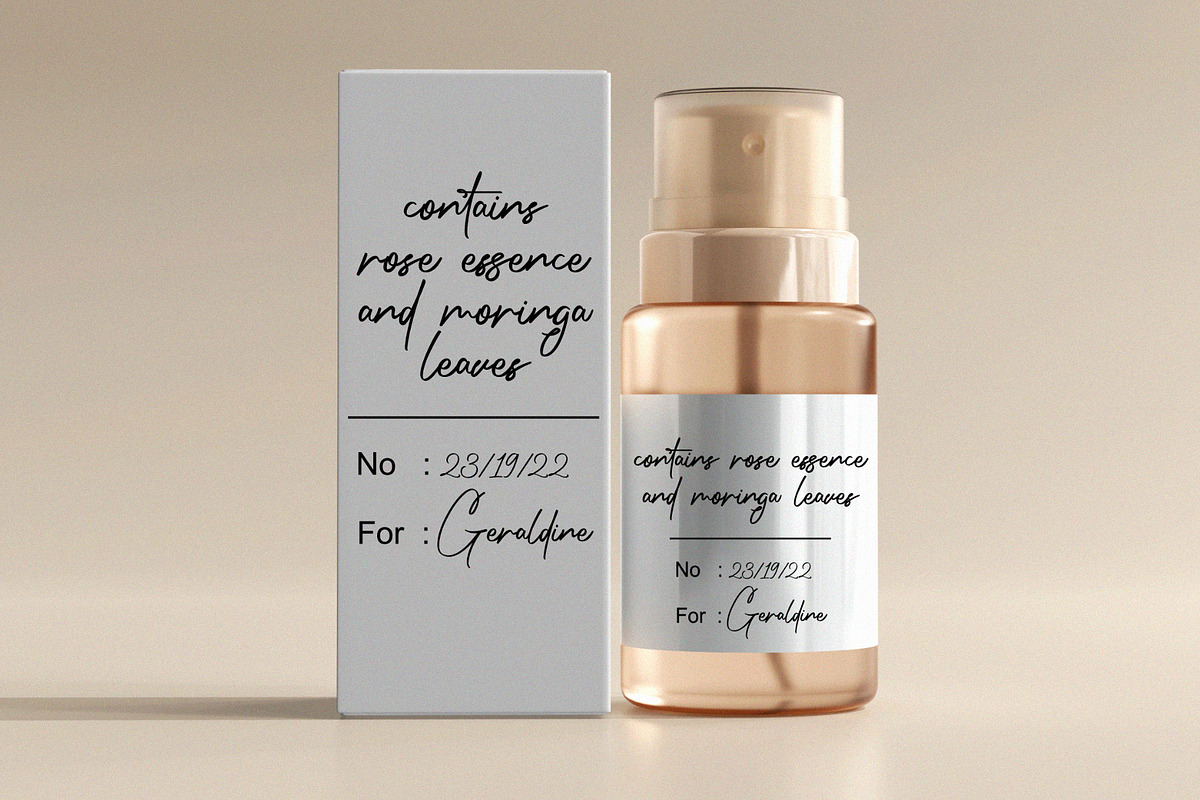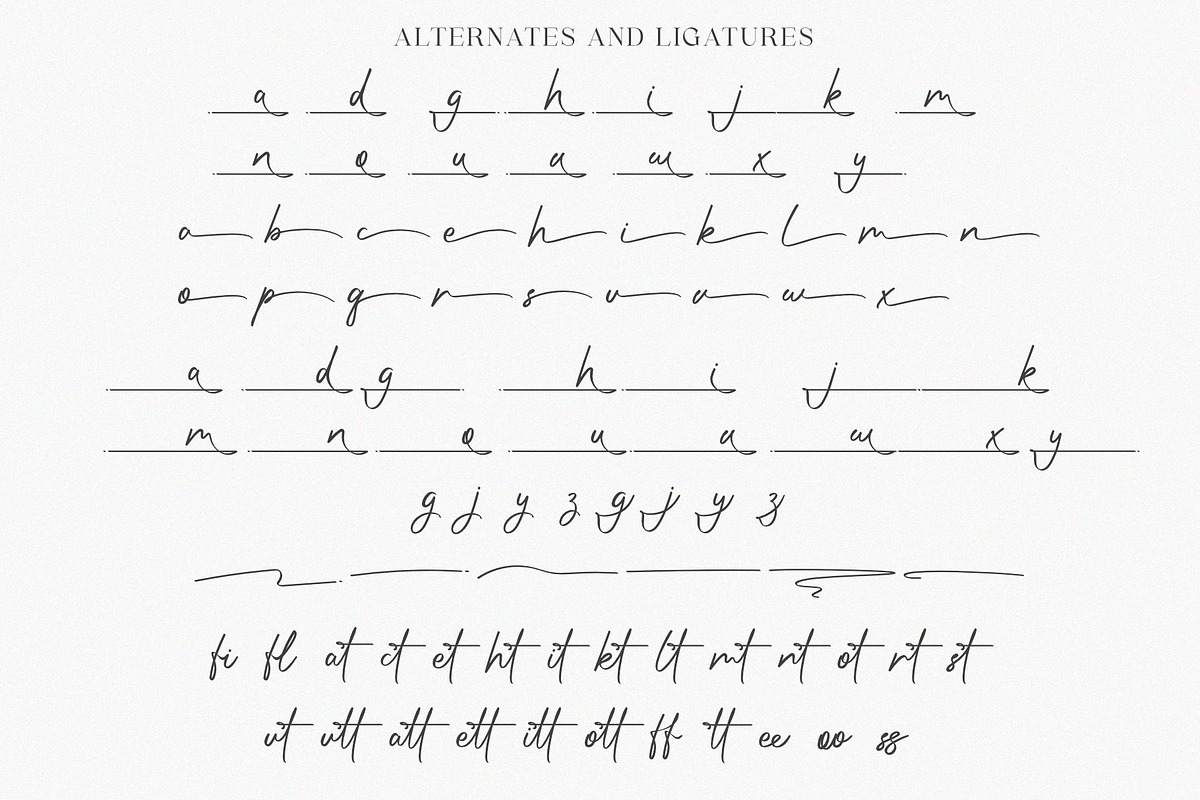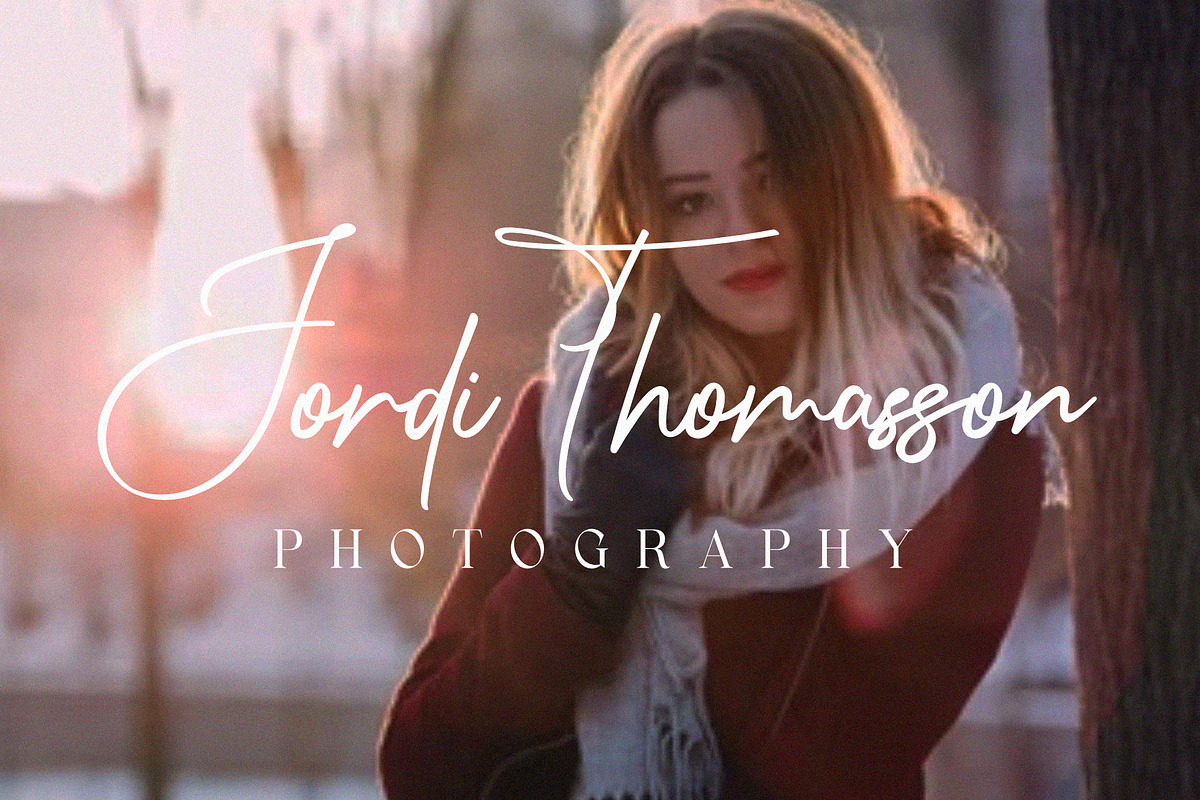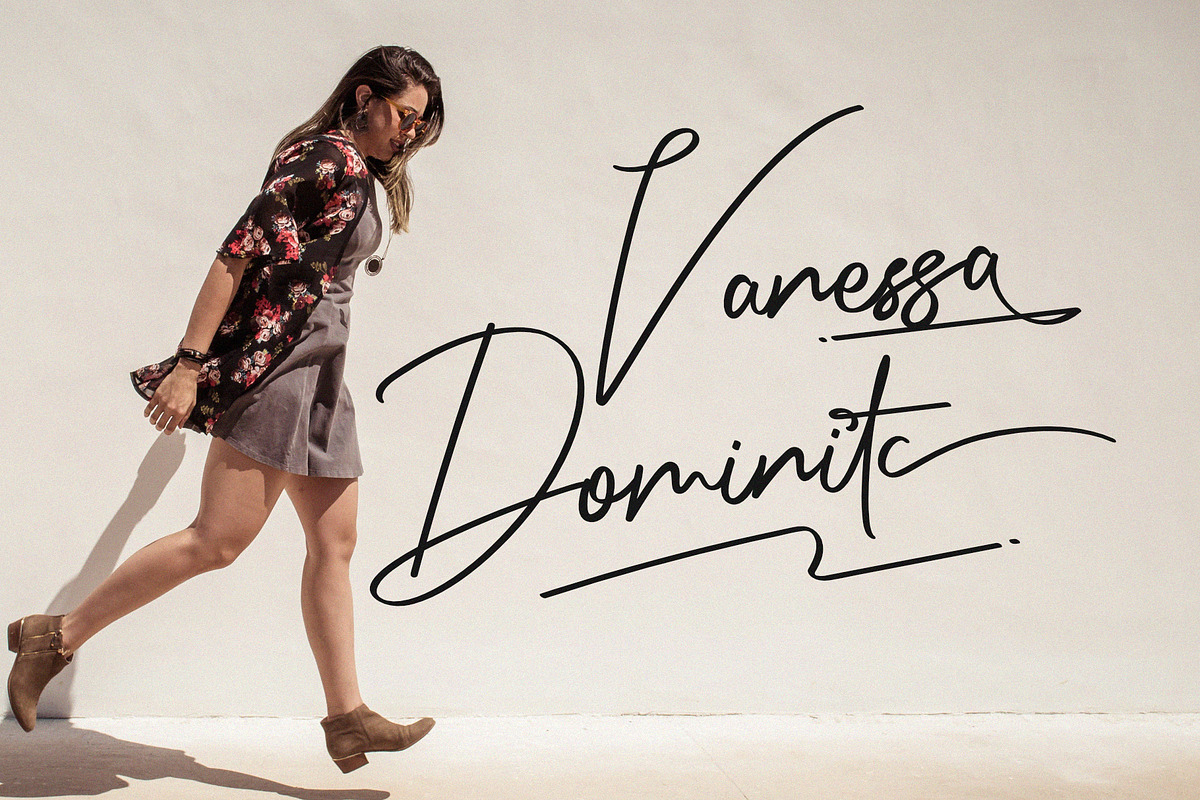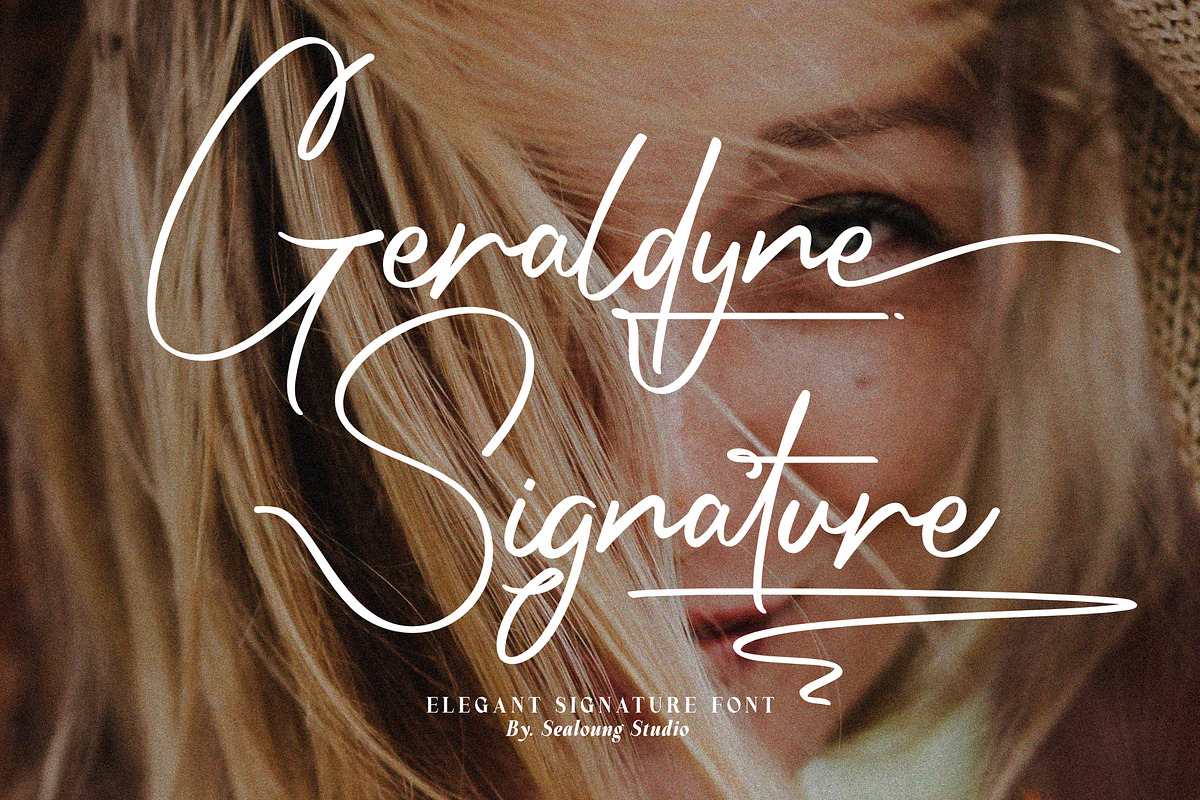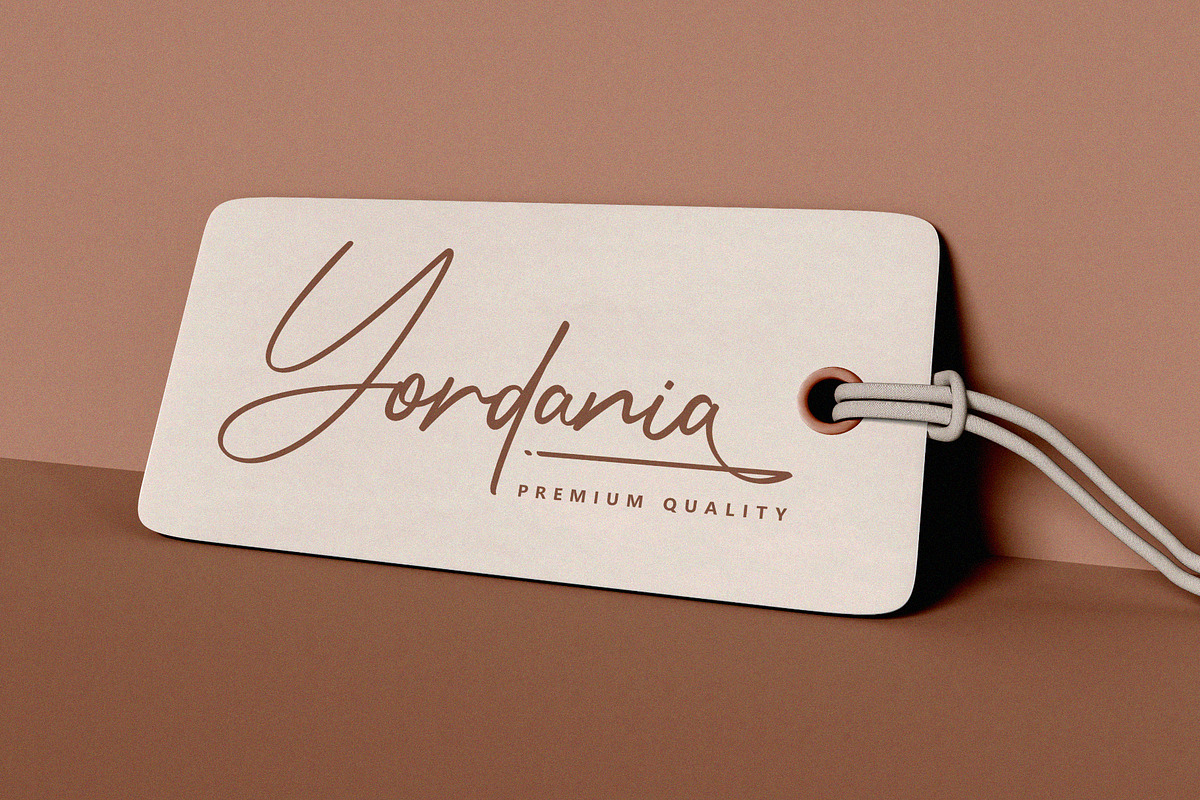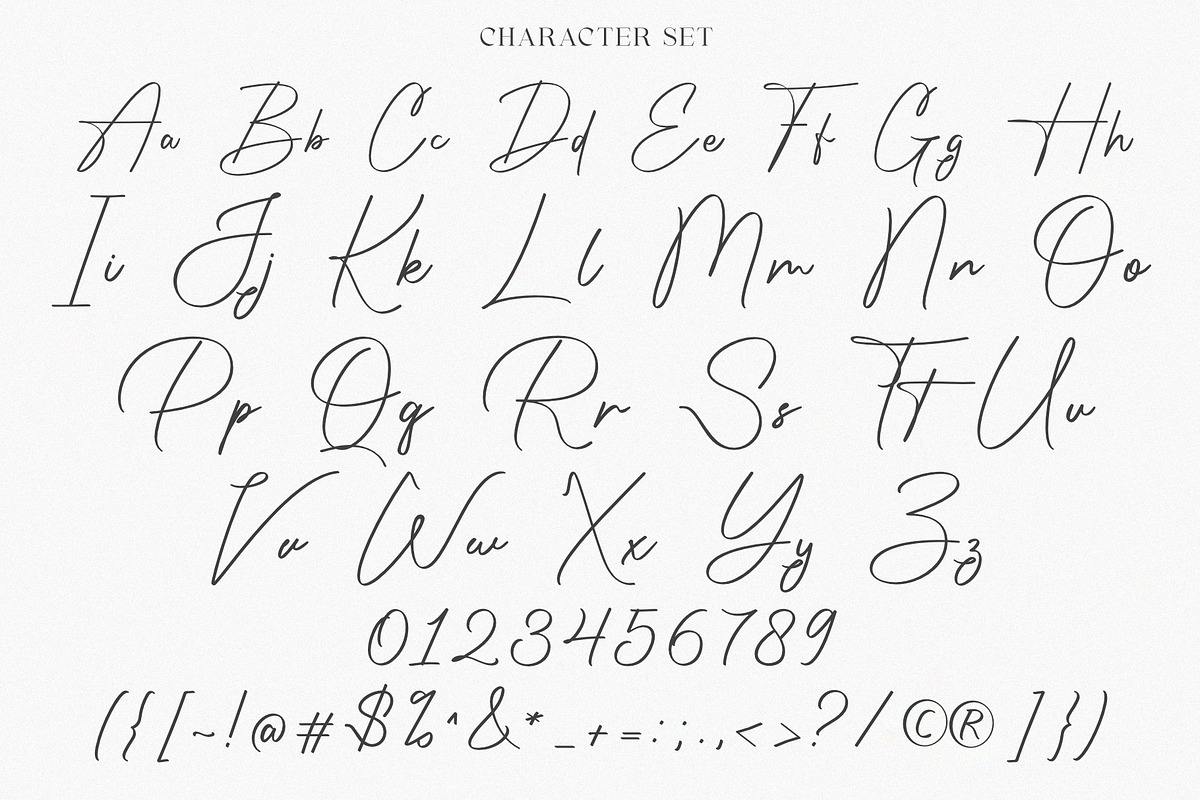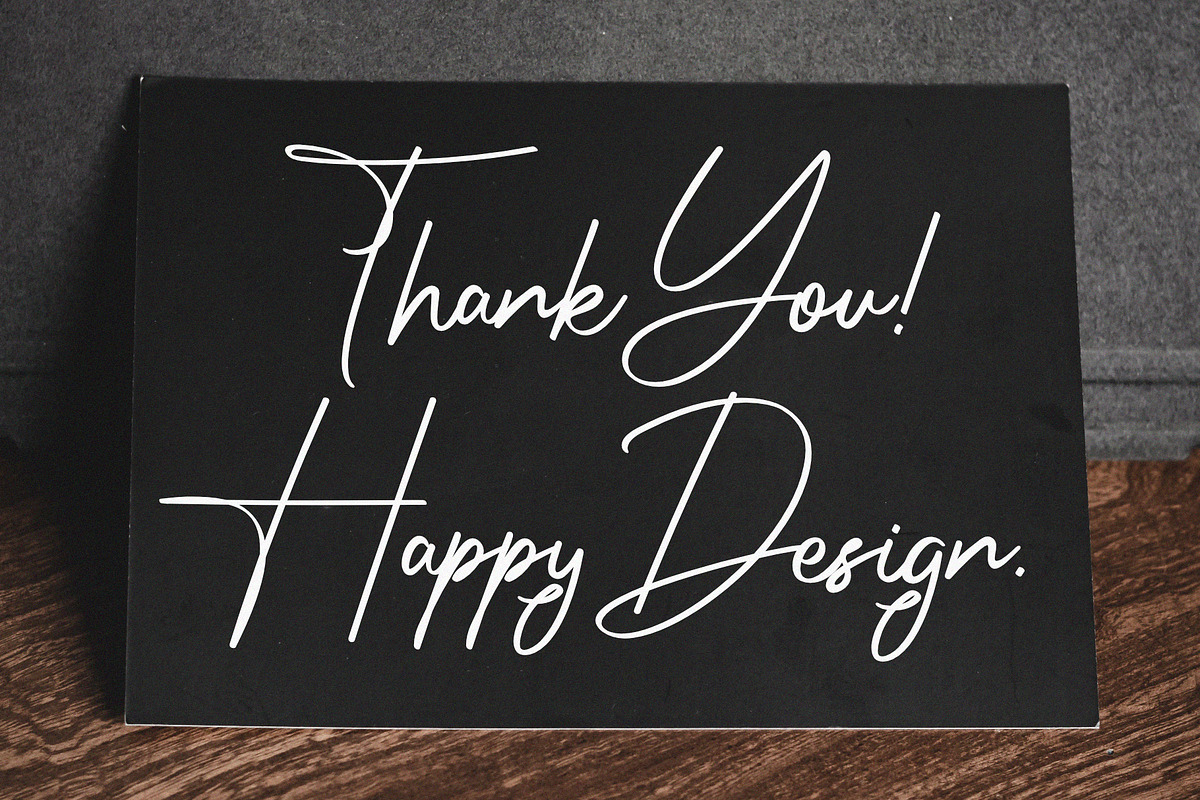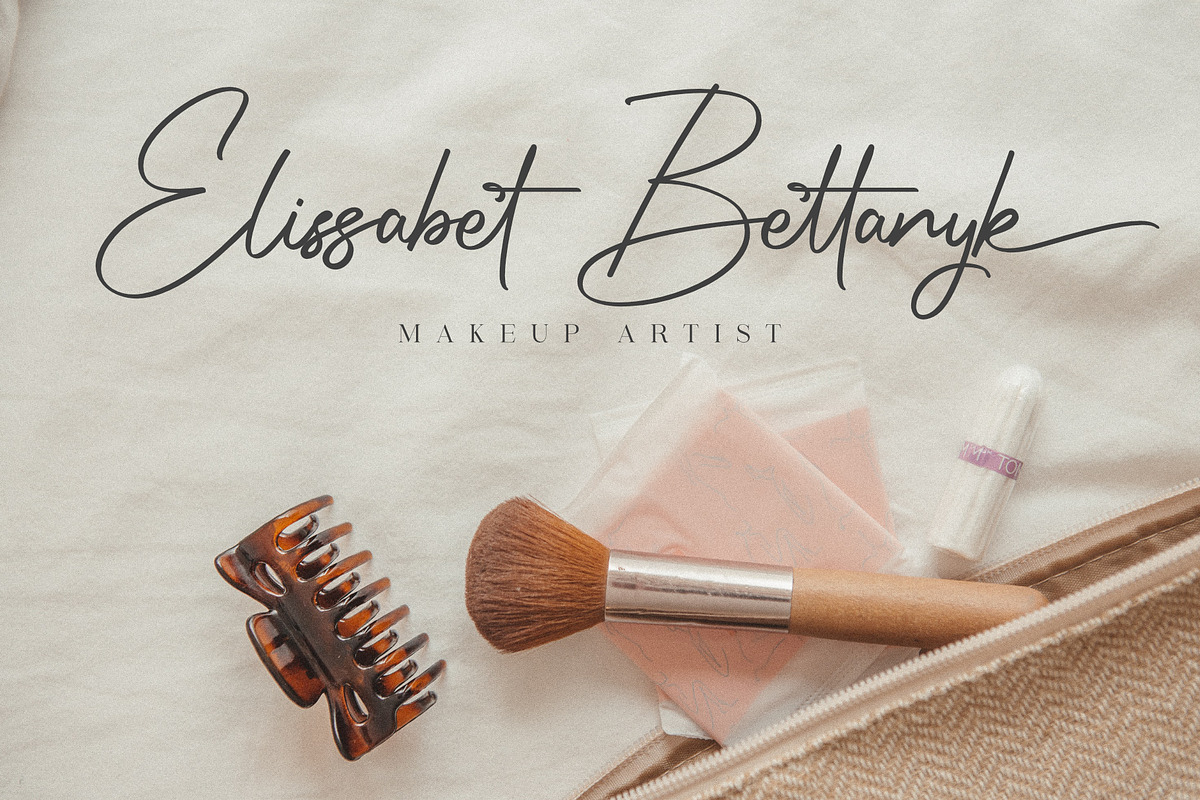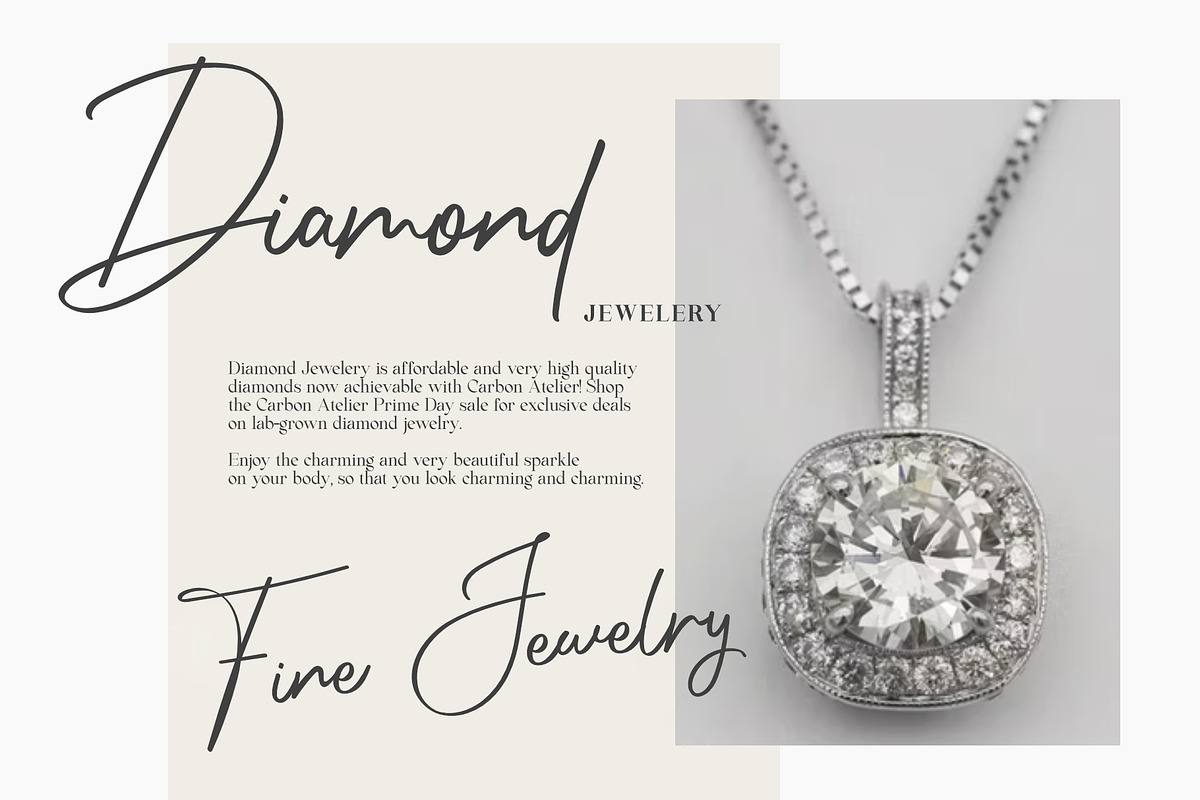
Geraldyne Signature
Say hello Geraldyne Signature, a handwritten script-inspired font that flows with an aesthetic touch.
Geraldyne Signature is flexible enough for web and print and can be used in a wide variety of projects such as stationery, packaging, apparel, wedding stationery, prints, quotes, social media graphics, planners, greeting cards, logos, branding, and more.
This font includes a character set of uppercase, lowercase, numbers, symbols, multilingual, alternates, and ligatures.